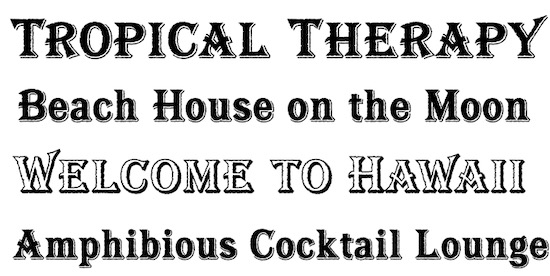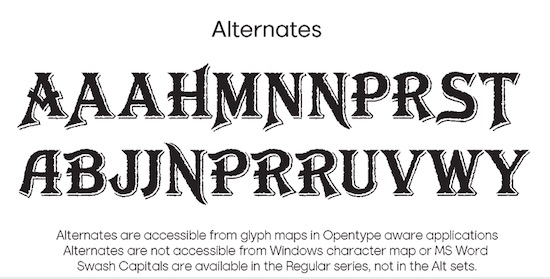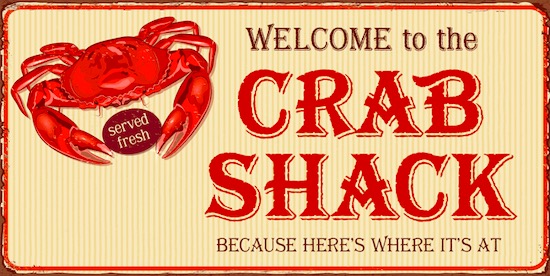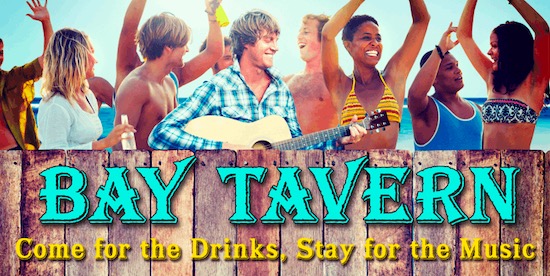
Introducing Tavern Font. It’s a super Display Serif font family that was designed by Michael Hagemann. Then, this huge font family was released by FontMesa. Tavern fonts can also be used as stand-alone typefaces.
With many different variant styles, Tavern Fonts can be perfect for most designs.
Styles
- Tavern Light
- Tavern Light Italic
- Tavern Regular
- Tavern Italic
- Tavern Bold
- Tavern Bold Italic
- Tavern Extra Bold
- Tavern Extra Bold Italic
- Tavern Black
- ….and other more than 100 styles
Tavern Serif Display Font